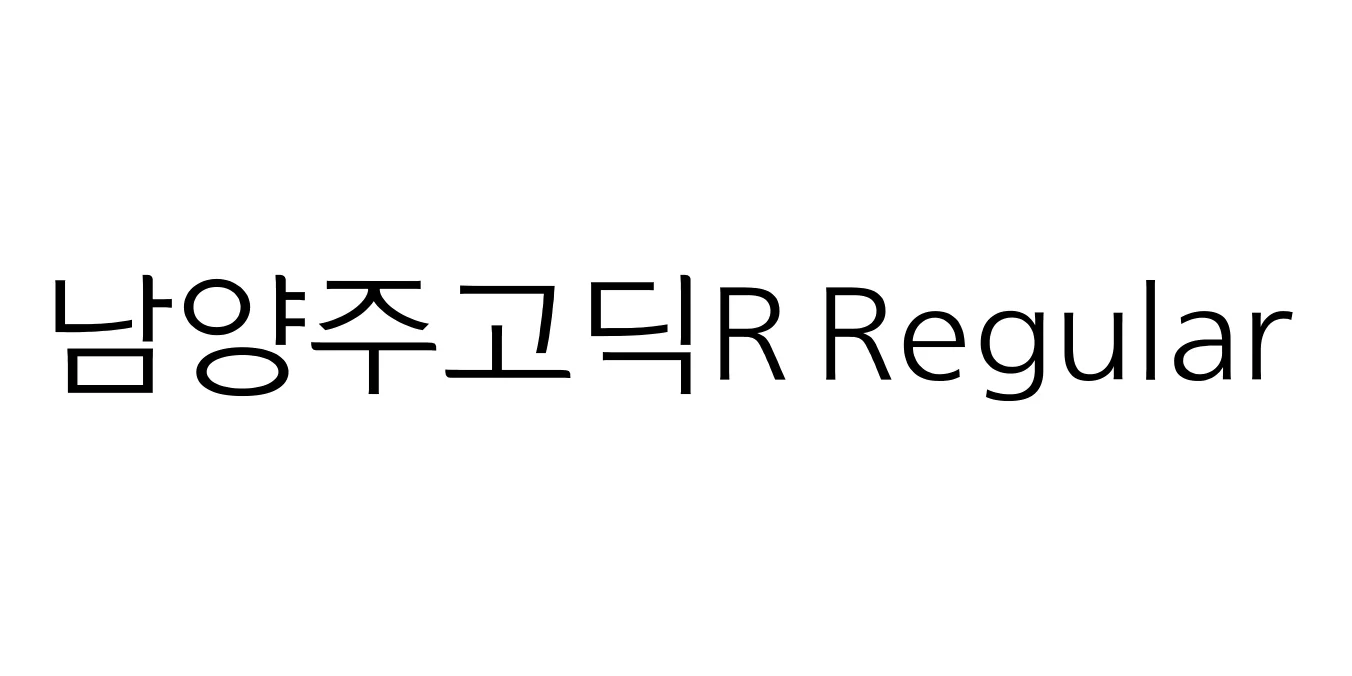
남양주고딕R Regular
Designed by Namyangju City
남양주고딕 (Namyangju Gothic) is a representative typeface developed and distributed by Namyangju City in Gyeonggi-do, South Korea. It was created to establish a unique and consistent visual identity for the city, reflecting its vision of a sustainable, modern, and citizen-oriented urban environment. The font family is designed with a focus on high legibility and a balanced structure, making it suitable for a wide range of administrative and promotional applications.
The Regular weight of Namyangju Gothic features clean, geometric lines combined with subtle rounded terminals that provide a soft yet professional appearance. Its design philosophy is rooted in the "Slow Life" concept of the city, aiming for visual comfort and clarity. Released as a public resource, it has become a popular choice for designers seeking a high-quality, free Korean Sans-Serif font that maintains a sense of regional character while meeting modern aesthetic standards.
남양주고딕R Regular Best Uses
Highly effective for formal reports, government documents, and administrative forms.
The clean structure ensures excellent readability for body text and navigation menus on websites.
Perfect for creating a professional and trustworthy image for businesses or public initiatives.
Optimized for clarity, making it ideal for banners, posters, and directional signs.